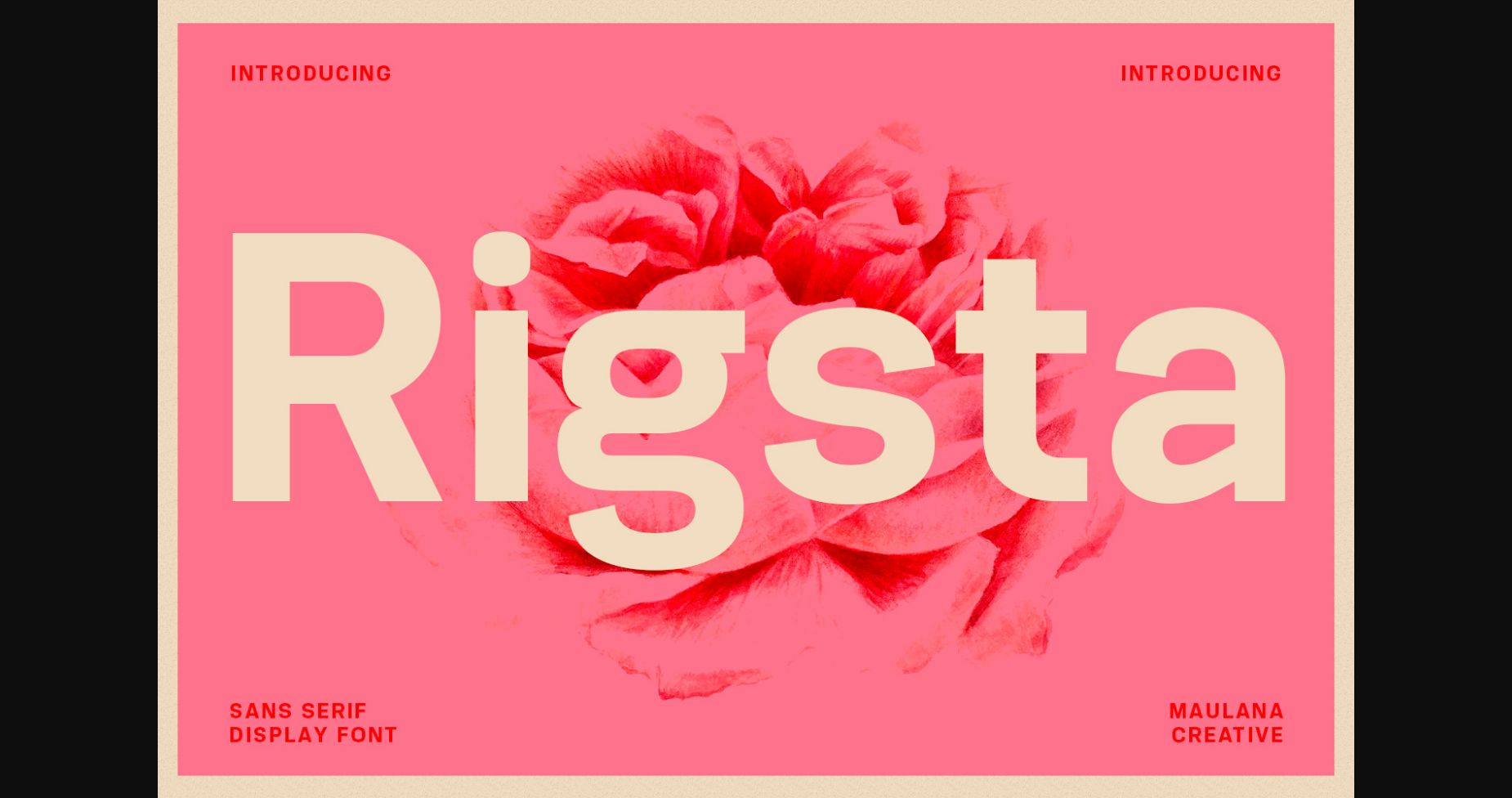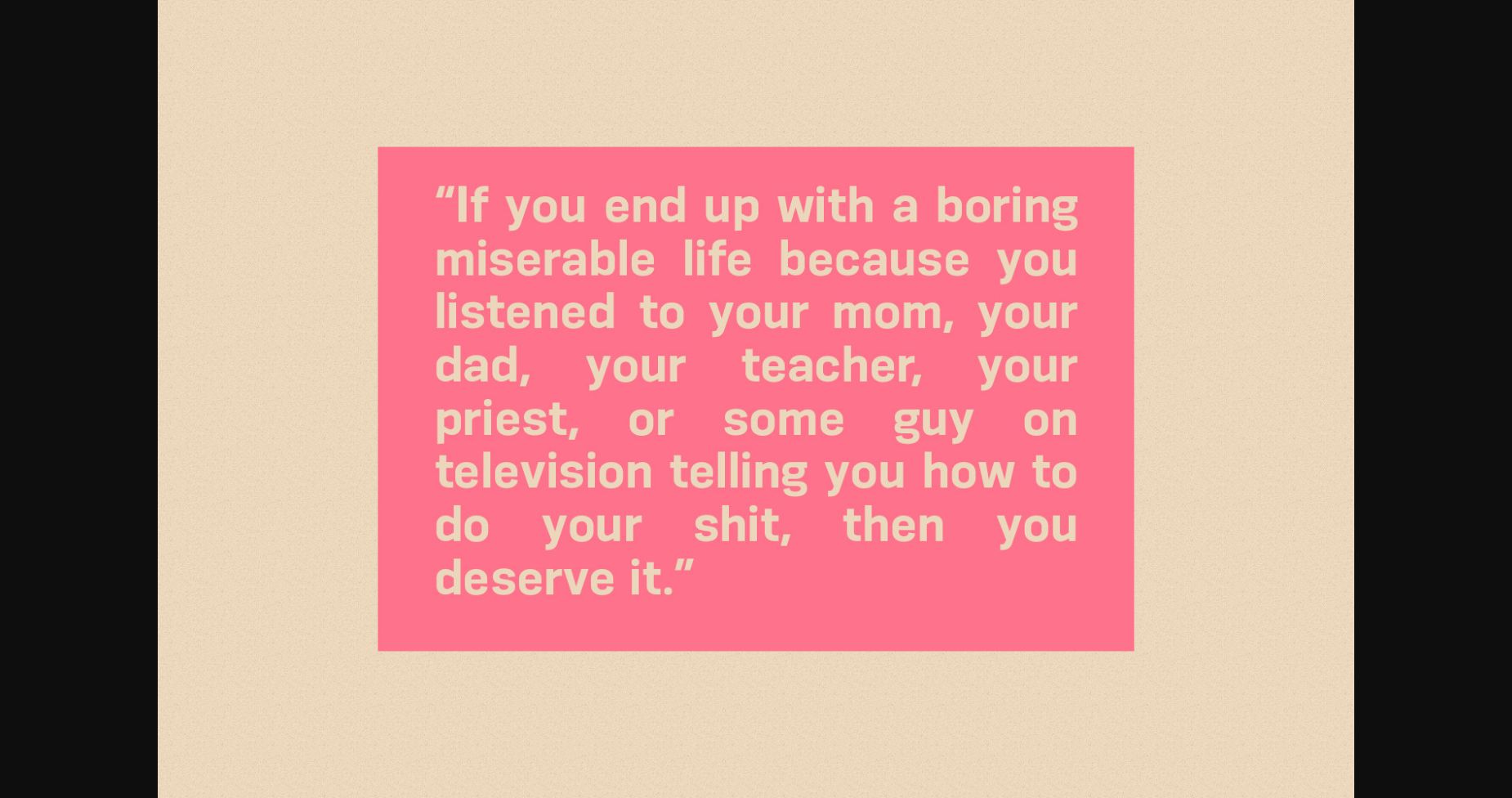
About Rigsta Font
Rigsta is a casual, retro-inspired sans serif font that is perfect for creating a laid-back, vintage feel. With its slightly rounded edges and bold, blocky letterforms, this font exudes a sense of fun and nostalgia. Rigsta is versatile enough to be used for a variety of design projects, from posters to logos to branding materials.